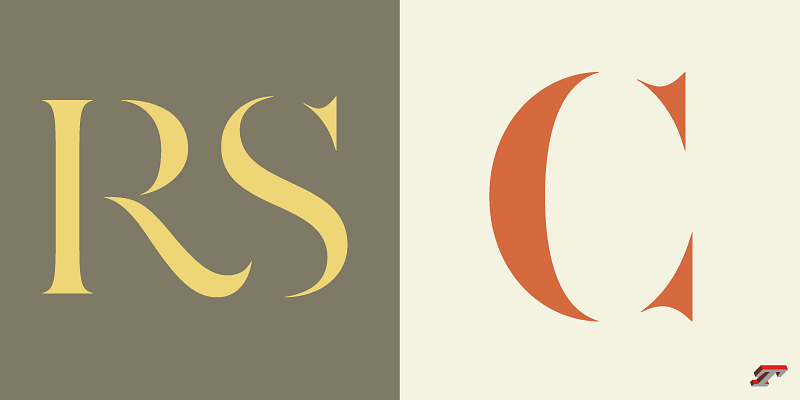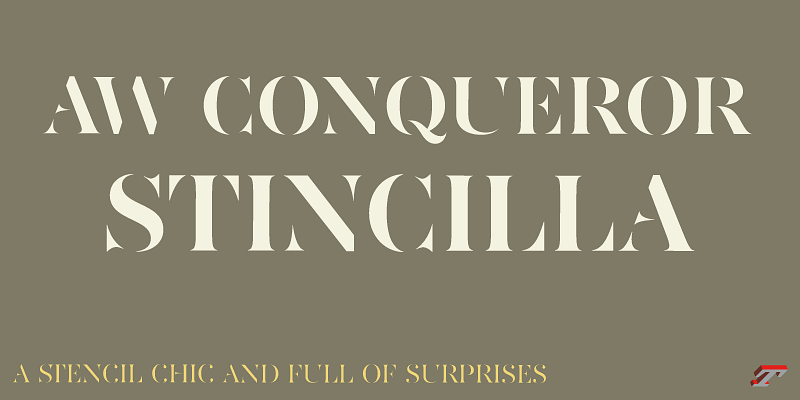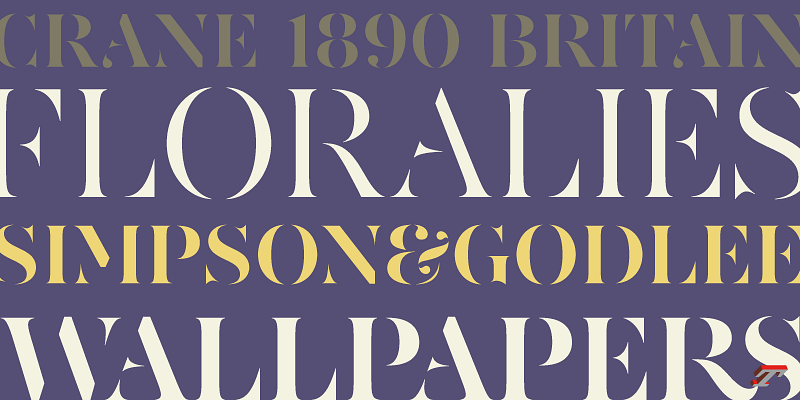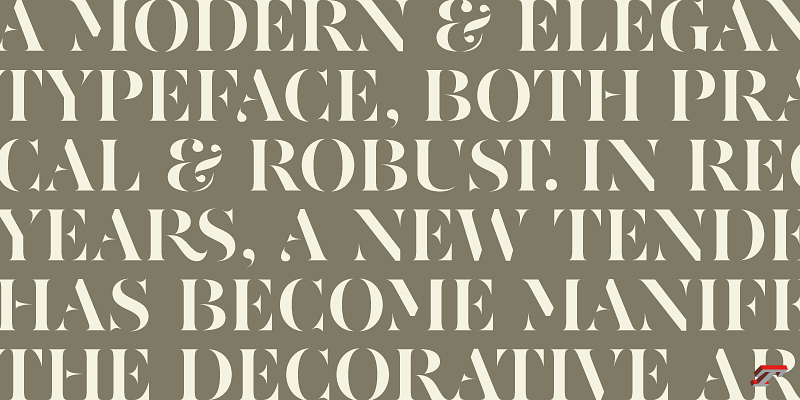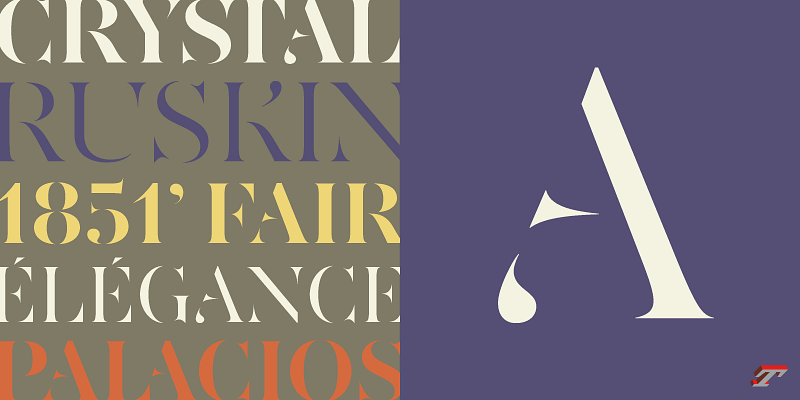
A stencil chic and full of surprises
Stincilla design is based on AW Conqueror Didot, but everything has been redesigned. Because removing the thinnest lines means rethinking the balance of each detail; each serif and its position in space, following the disappearance of the slashes and the way they evoke the invisible thinnest lines. New shapes had to be devised in order to suggest parts of the disappeared letters.
It is a typeface for branding, brand design and logotypes. A certain elegance of form and curves is evident. Using Stincilla is to praise transparency, the superimposition of letters on plain, screened or photographic backgrounds. Each in its own way, the lightest as well as the fattest weights bring different tones.
AW Conqueror was designed from the start to create contrasts in your compositions. Chic and full of surprises, Stincilla will work alone or with Inline, Slab, Carved, Sans and Didot. Its 8 styles are compatible with AW Conqueror Didot and AW Conqueror Sans as well Inline, Slab, Carved families.